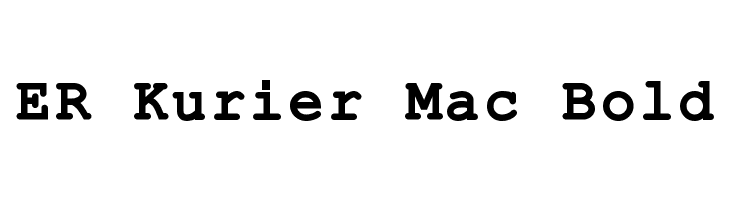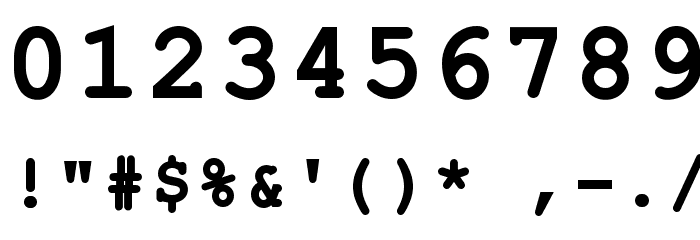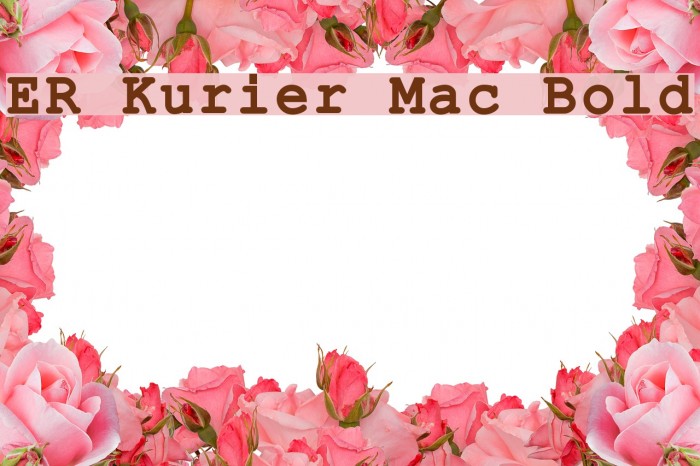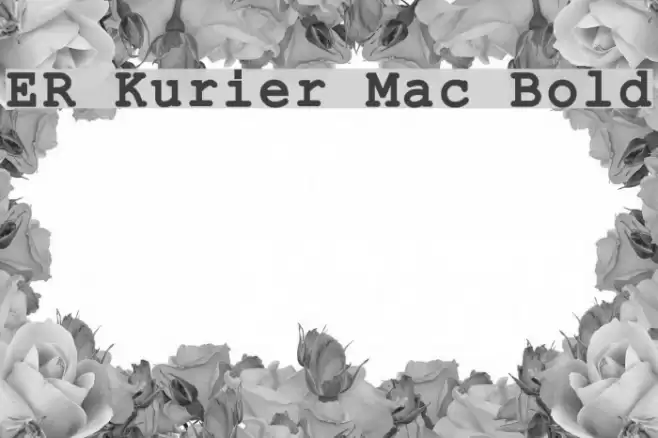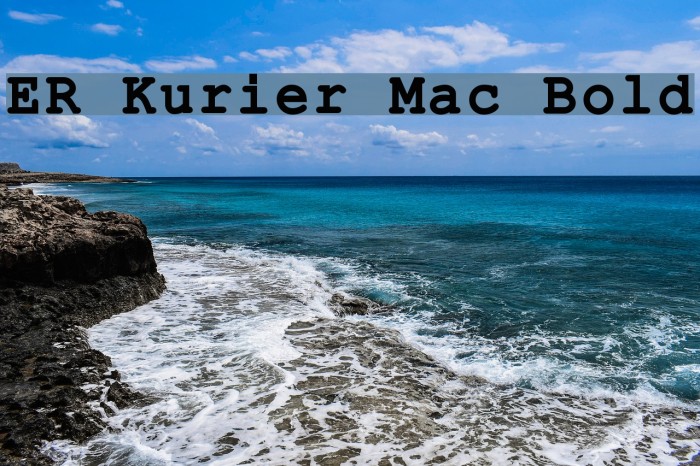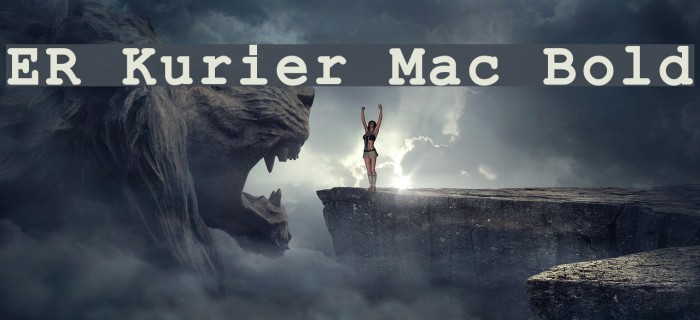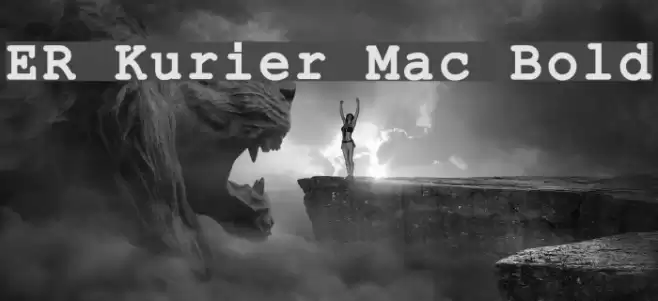
ER Kurier Mac Bold Font
ER Kurier Mac Bold Description
This font exhibits a bold and robust slab serif style, characterized by thick, uniform strokes and strong serifs that give it a sturdy and impactful appearance. The uppercase letters are prominent and commanding, while the lowercase letters maintain a consistent weight, ensuring readability. The numerals are clear and well-defined, matching the overall bold aesthetic. Special characters are distinct and maintain the font's solid structure. This font's design is reminiscent of typewriter fonts, offering a vintage yet timeless appeal.
| Overall Style | Vintage |
| Proposed Projects | Ideal for projects requiring a strong, retro feel such as posters, headlines, branding, and editorial design. |